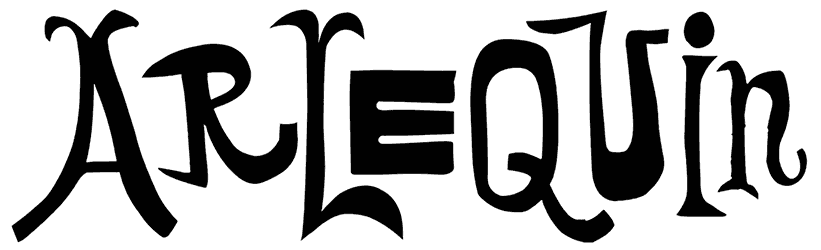
Arlequin Font
Are you in the market for the best collage designs? Then Arlequin is specially designed for you. One of the most attractive things about this ransom note font is the incongruous and irregular shape of the letters, which can create a sense of confusion while being beautiful in any project.
This evil font, which does not look so scary, can create a wonderful Halloween theme on posters, book covers, and advertising banners.